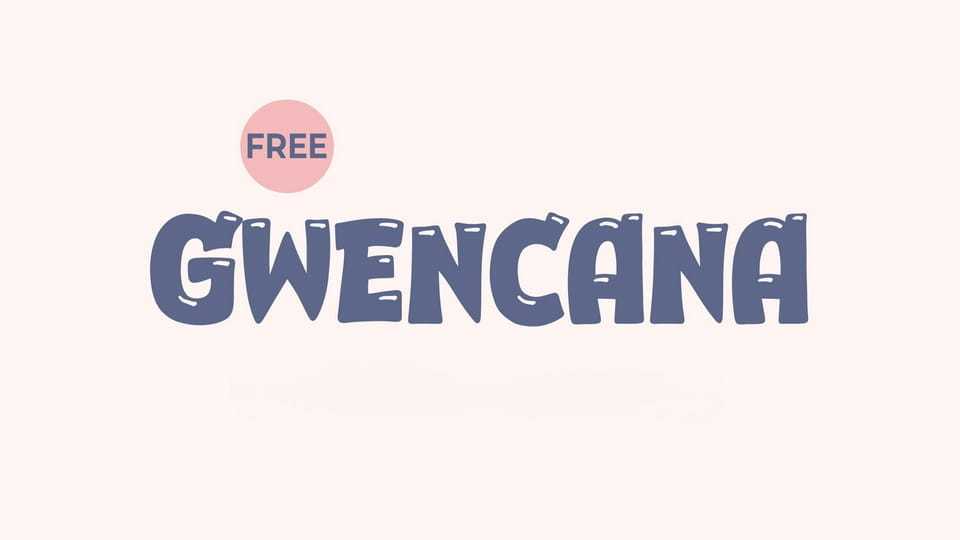
Download Gwenchana font, a quirky display typeface with an irregular, hand-drawn style that feels relaxed and spontaneous. Its uneven shapes and casual rhythm create an easygoing and playful mood.